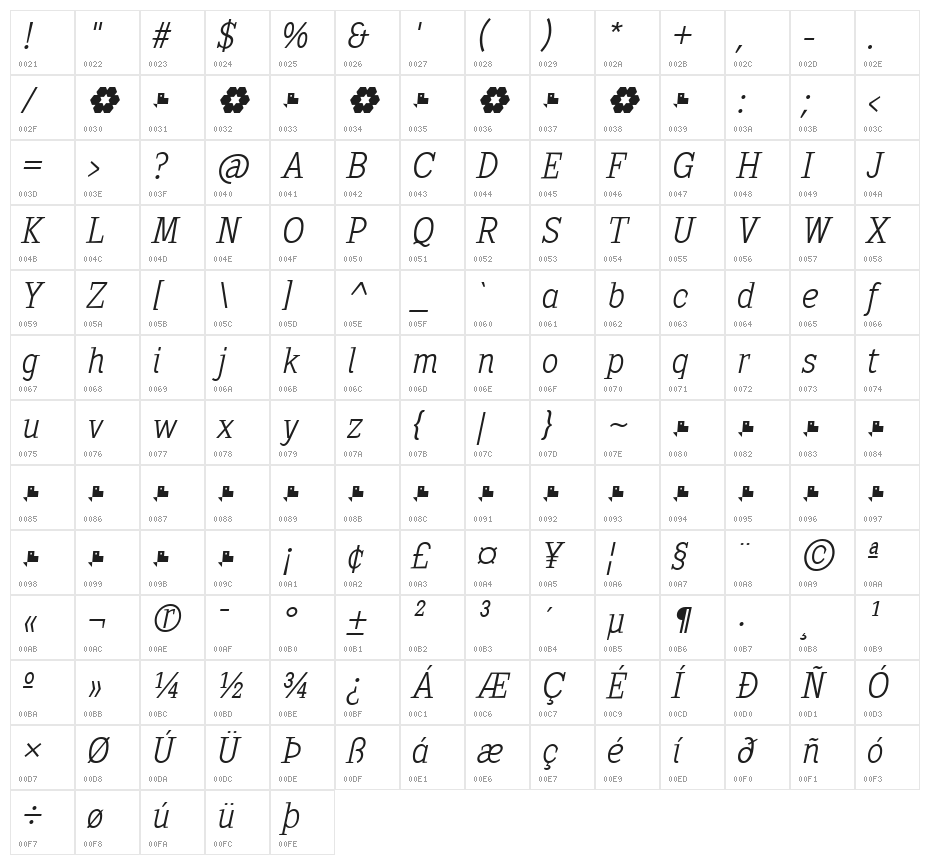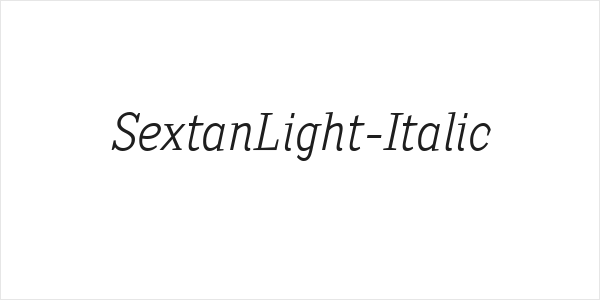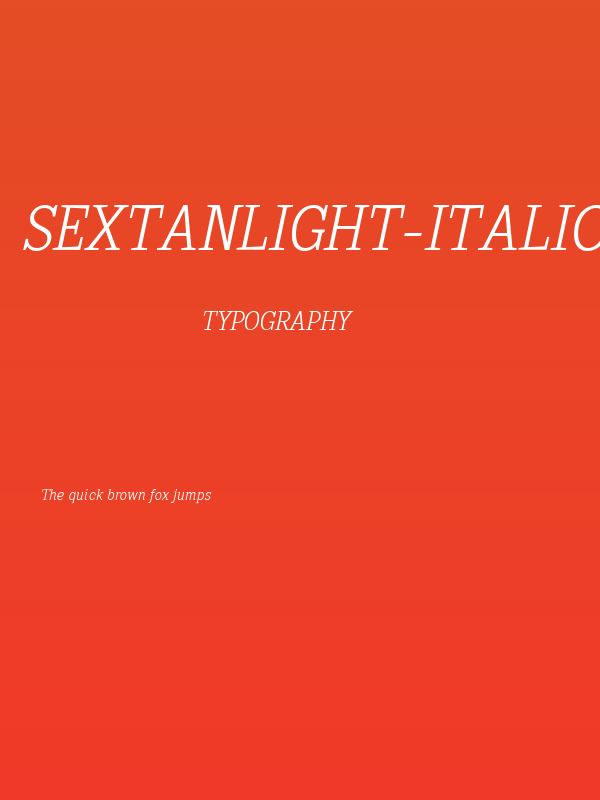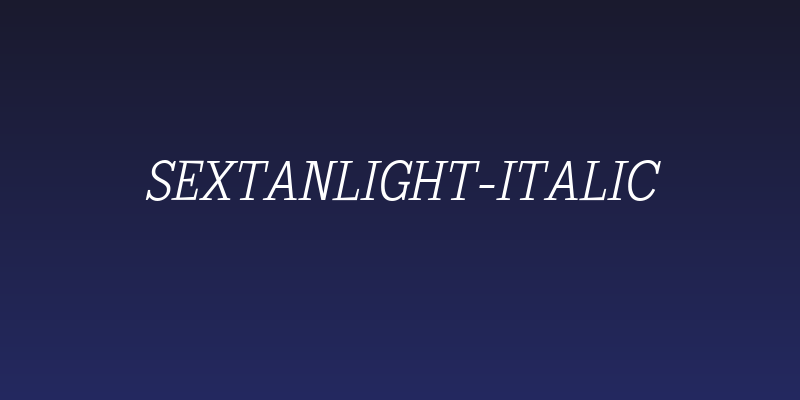
SextanLight-Italic Font
SextanLight-Italic Description
This font exhibits a refined and elegant style, characterized by its light weight and italicized form. The letters are gracefully slanted, providing a sense of motion and sophistication. The serifs are subtle, adding a classic touch without overwhelming the overall design. The font maintains a consistent stroke width, contributing to its readability and clean appearance. It includes a full set of uppercase and lowercase letters, numerals, and a variety of special characters, making it versatile for various applications.
| Proposed Projects | Ideal for formal invitations, elegant branding, and sophisticated editorial design. |